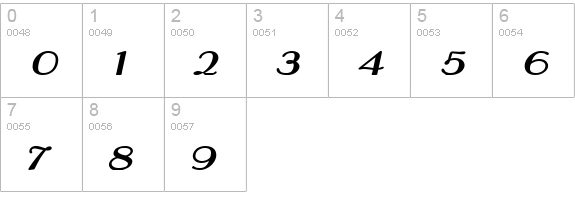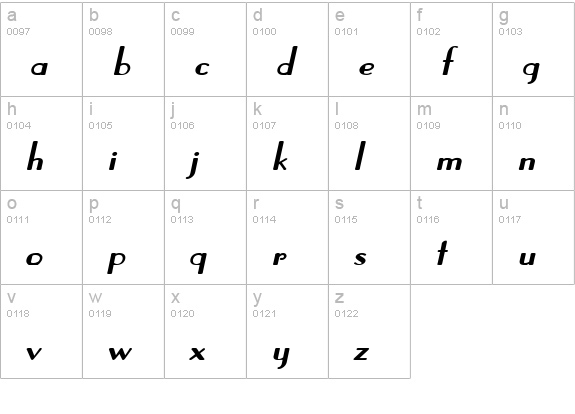
Paris Wide Bold Italic Font Details
Paris Wide Bold Italic is a strong, high-contrast, extended-width, italic variant in the Paris typeface family \xE2\x80\x94 well suited to headlines, attention-grabbing titles, and strong calls-to-action.
Paris Wide Bold Italic is a modern and stylish font that exudes confidence and sophistication. Its bold and italicized design adds a touch of elegance to any project, making it perfect for headlines, logos, and branding materials. The wide letterforms give this font a unique and eye-catching appearance, while the subtle curves and slanted angles add a sense of dynamism and energy. This font is not only visually striking but also exceptionally versatile, as it can be used across a wide range of design applications. Whether you're working on a fashion magazine, a restaurant menu, or a corporate presentation, Paris Wide Bold Italic will effortlessly elevate your design to new heights. One of the best things about Paris Wide Bold Italic is that it is available for free download at FontsMarket.com. This means that you can easily access and use this stunning font for your personal and commercial projects without any restrictions. Its freely available nature makes it a valuable asset for designers, allowing them to explore their creativity without any limitations. So, if you're looking for a font that combines boldness, elegance, and versatility, Paris Wide Bold Italic is the perfect choice. Download it for free at FontsMarket.com and start creating stunning designs that capture attention and leave a lasting impression.